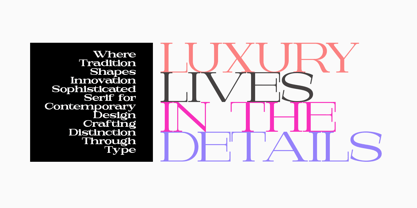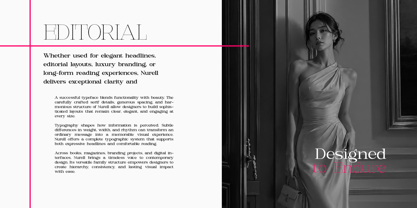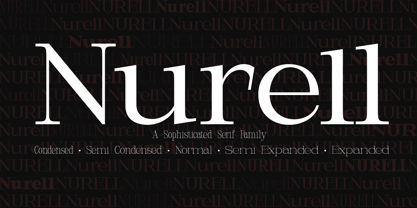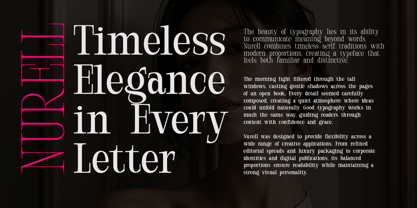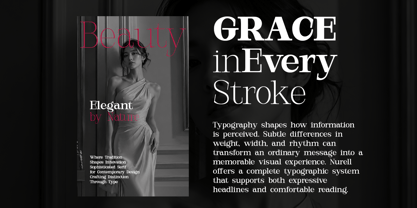
Nurell
by Jorsetype
The Nurell Font Family was designed by Ront Jorse and published by Jorsetype. Nurell contains 45 styles and family package options. More about this family
Nurell Serif Font Family
Nurell is a sophisticated serif typeface designed to bring elegance, versatility, and timeless character to any design project. Featuring 45 upright styles across five carefully crafted width categories, Nurell offers exceptional flexibility for editorial layouts, branding, packaging, publishing, luxury identities, and professional typography. Its refined serif details, balanced proportions, and excellent readability make it suitable for both large display applications and extended body text.
The family includes five width variations, each available in a complete weight range from Thin to Black, allowing designers to create harmonious typographic systems with ease.
Nurell Condensed
Nurell Condensed is designed for projects where space efficiency meets elegance. Its narrower proportions allow more content to fit comfortably while maintaining excellent readability and sophisticated serif details. Ideal for magazines, newspapers, posters, packaging, and branding projects that require a strong typographic presence within limited space.
Nurell Semi Condensed
Nurell Semi Condensed provides a balanced approach between compactness and readability. Slightly wider than the Condensed styles, it offers a comfortable reading experience while preserving an efficient footprint. Perfect for editorial design, corporate communications, annual reports, and contemporary branding systems.
Nurell Normal
Nurell Normal represents the core expression of the family. Carefully balanced proportions, graceful serif construction, and refined letterforms make it highly versatile across a wide range of applications. Whether used for headlines, logos, books, websites, or body text, Nurell Normal delivers clarity, elegance, and professionalism.
Nurell Semi Expanded
Nurell Semi Expanded introduces a more open and spacious appearance while maintaining the classic serif character of the family. The increased width enhances visual impact and readability, making it an excellent choice for premium branding, luxury packaging, editorial headlines, and sophisticated marketing materials.
Nurell Expanded
Nurell Expanded delivers a bold and commanding presence through its wider proportions and elegant serif structure. Designed for impactful headlines, luxury identities, advertising campaigns, and premium design projects, it creates a strong visual statement while preserving refinement and readability.